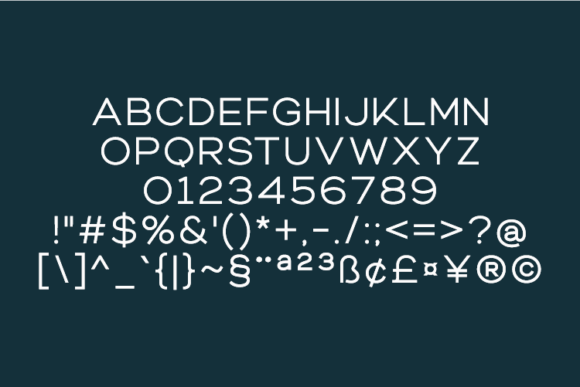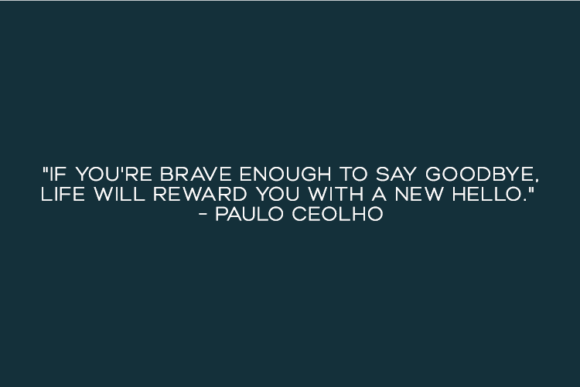
Introducing Garlicky Font: Elevate Your Designs with a Stunning Sans Serif
Are you tired of using the same old fonts in your designs? Look no further! Garlicky Font is here to revolutionize the way you create beautiful headings, invitations, logos, and more. This stunning sans serif font is designed to complement every project you’re working on, and we’re excited to dive into its features and benefits.
What is Garlicky Font?
Garlicky Font is a modern sans serif font that boasts a clean and elegant design. Its sleek lines and curves make it perfect for a wide range of applications, from digital designs to print materials. Whether you’re a graphic designer, a crafty DIY enthusiast, or a business owner looking to elevate your brand, Garlicky Font is an excellent choice.
Key Features of Garlicky Font
- Versatility: Garlicky Font is incredibly versatile, making it suitable for various design projects, including headings, invitations, logos, and more.
- Clean Design: The font features a clean and minimalist design, ensuring that your text remains clear and easy to read.
- Elegant Curves: Garlicky Font’s elegant curves add a touch of sophistication to your designs, making them stand out from the crowd.
- Easy to Read: The font’s sans serif design ensures that your text is easy to read, even at small sizes.
How to Use Garlicky Font
Garlicky Font is incredibly easy to use, even if you’re not a professional designer. Here are a few ideas to get you started:
- Create Beautiful Headings: Use Garlicky Font to create stunning headings for your blog posts, articles, or website.
- Design Gorgeous Invitations: Create eye-catching invitations for special occasions, such as weddings, birthdays, or baby showers.
- Make Stunning Logos: Use Garlicky Font to create unique and memorable logos for your business or brand.
- Add a Personal Touch: Use Garlicky Font to add a personal touch to your DIY projects, such as handmade cards, gift tags, or scrapbook pages.
Benefits of Using Garlicky Font
By using Garlicky Font, you’ll enjoy several benefits, including:
- Improved Readability: Garlicky Font’s clean design and elegant curves ensure that your text is easy to read.
- Increased Versatility: The font’s versatility makes it suitable for a wide range of design projects.
- Enhanced Creativity: Garlicky Font’s unique design will inspire you to create stunning and unique designs.
- Professional Look: The font’s elegant design will give your projects a professional look and feel.
Garlicky Font is an exceptional sans serif font that will elevate your designs to the next level. Its clean design, elegant curves, and versatility make it perfect for a wide range of applications. Whether you’re a designer, a crafty DIY enthusiast, or a business owner, Garlicky Font is an excellent choice. So why wait? Download Garlicky Font today and start creating stunning designs that will leave a lasting impression!
- Is Garlicky Font suitable for body text? While Garlicky Font is perfect for headings and titles, it may not be suitable for body text. However, you can experiment with different font sizes and styles to find the perfect combination for your project.